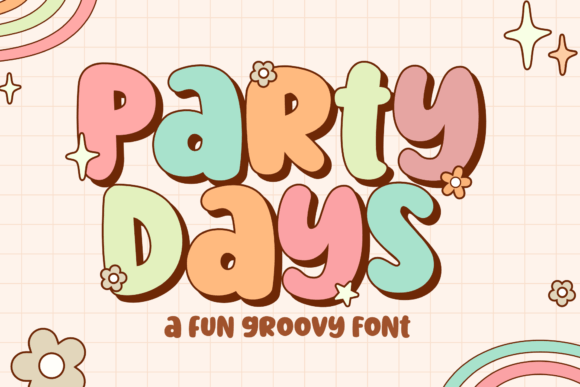
Introducing Party Days Font, the ultimate choice for adding a touch of joy and playfulness to your designs! Crafted with passion by Holydie Studio, this groovy font is a tribute to retro bold typography, perfect for capturing the essence of a bygone era.
With Party Days, your creativity knows no bounds. Its whimsical curves and lively strokes breathe life into any design, making it the ideal companion for book covers, posters, packaging, merchandise, logotypes, and beyond.
Designed with kids in mind, Party Days Font is the Best Font for Kids Writing, as it effortlessly captures their innocence and imagination. Each letter is carefully crafted to evoke a sense of wonder and excitement, providing a visual feast for young readers and aspiring artists alike.
Bring your projects to life with this versatile display font that effortlessly combines style and charm. Whether you're aiming for a retro-inspired aesthetic or seeking to inject a playful twist into your designs, Party Days Font has got you covered.
Unleash your inner child and let Party Days Font transport you to a world of endless possibilities. Its vibrant and energetic personality will instantly captivate your audience, leaving a lasting impression on anyone who lays eyes on your creations.
Don't settle for ordinary fonts when you can elevate your designs with the extraordinary. Party Days Font will make your artwork stand out among the crowd, ensuring that your message is conveyed with flair and personality.